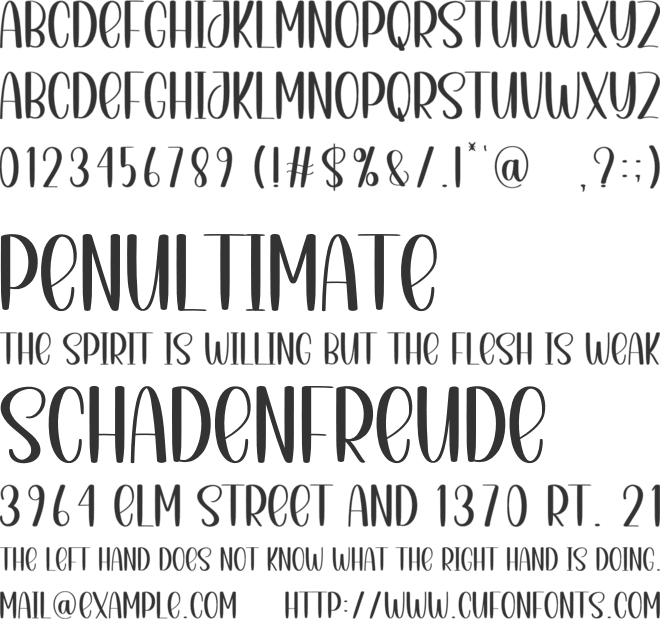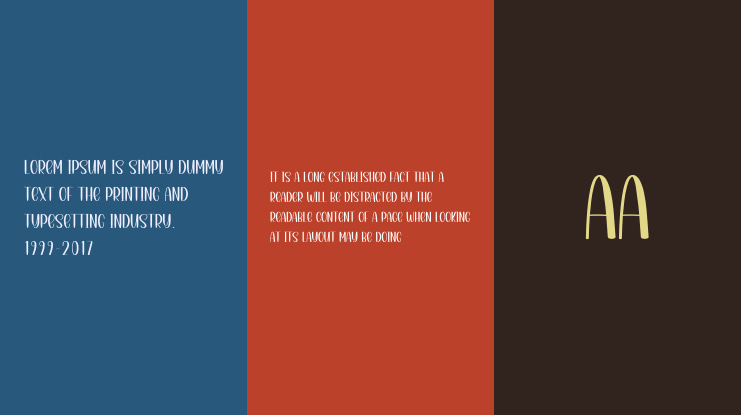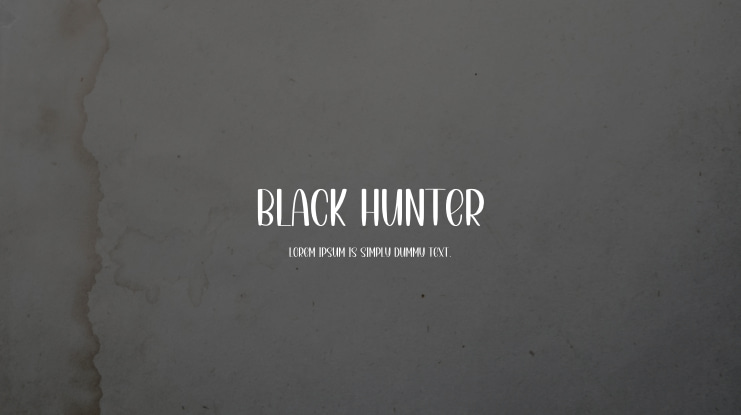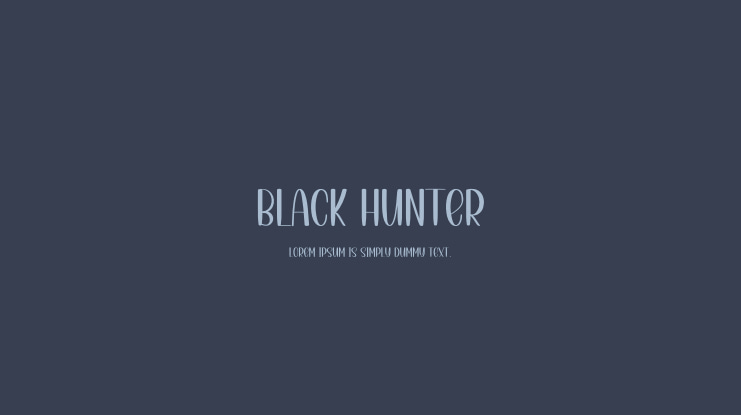
Black Hunter Font
The latest stylish letters are perfect for wall displays, wedding invitations, social media post logos, advertisements, product packaging, product designs, labels, photography watermarks, invitations, stationery, and any project that requires tasteful handwriting.